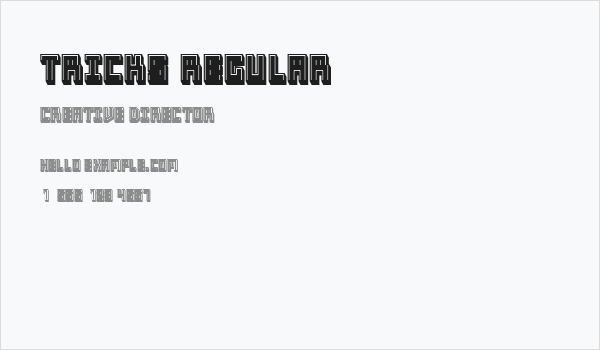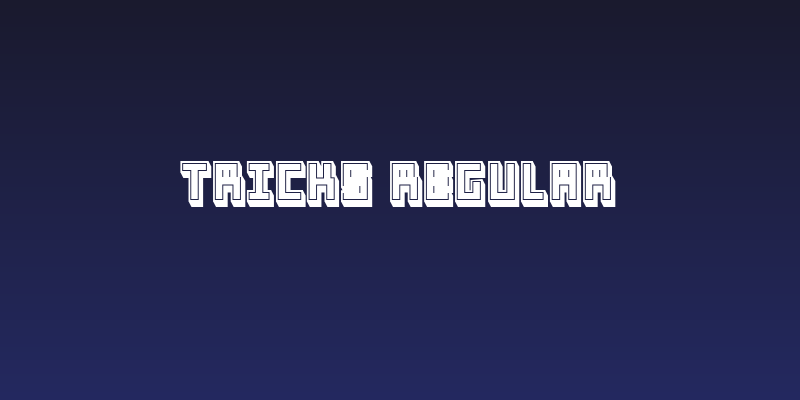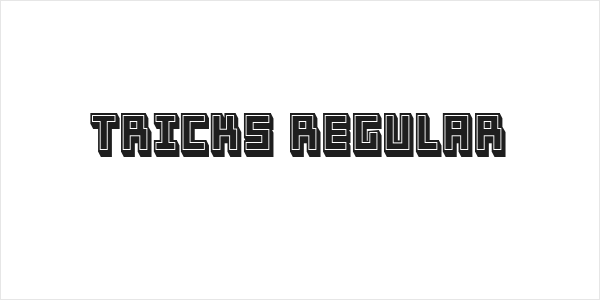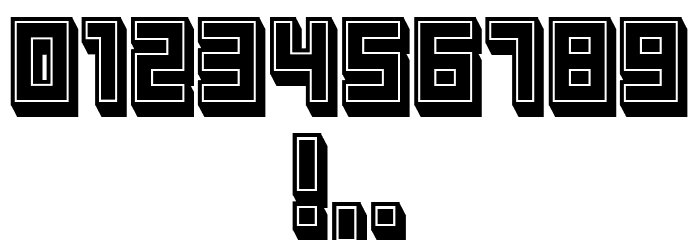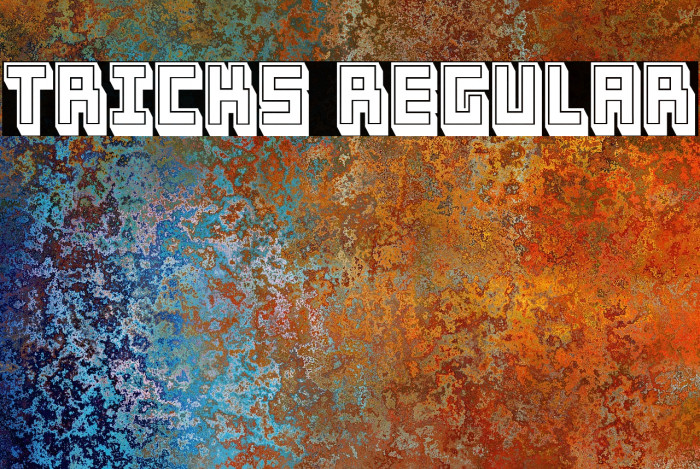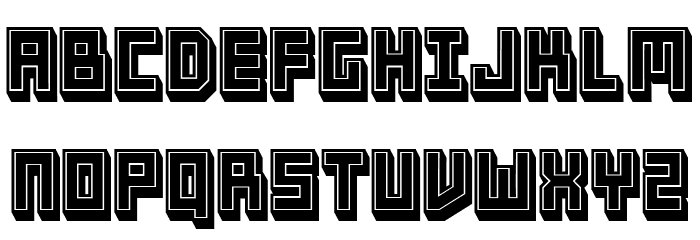
Tricks Regular Font
Tricks Regular Description
This font features a bold, geometric design with a three-dimensional effect, giving each character a shadowed appearance. The uppercase letters are blocky and angular, with a strong presence that commands attention. The numbers and special characters maintain this bold style, ensuring consistency across all elements. The font's unique style makes it ideal for eye-catching designs, where a modern and impactful look is desired. Its thick lines and shadow effects create a sense of depth, making it suitable for projects that require a standout visual element.